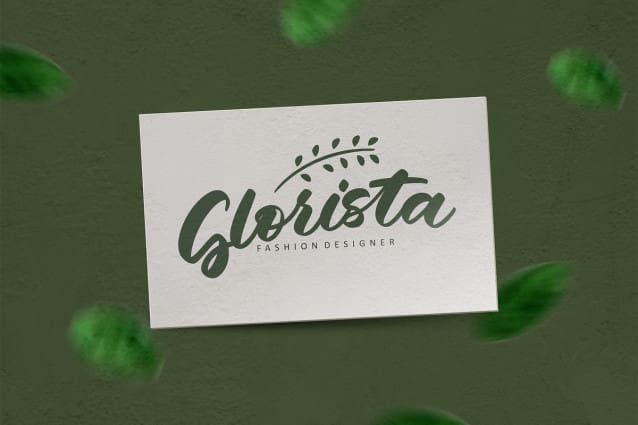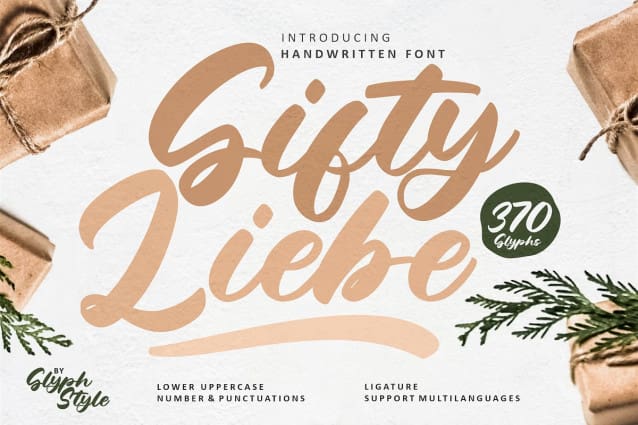
Gifty Liebe Font
Gifty Liebe Font is a very familiar, cursive handwritten font that is perfect for crafting or DIY designs. Also very suitable for greeting cards, gifts etc
Gifty Liebe is perfect for branding, logos, wedding designs, social media posts, advertisements, product packaging, product designs, labels, photography, watermarks, invitations, stationery, and any project that requires a sense of script font.